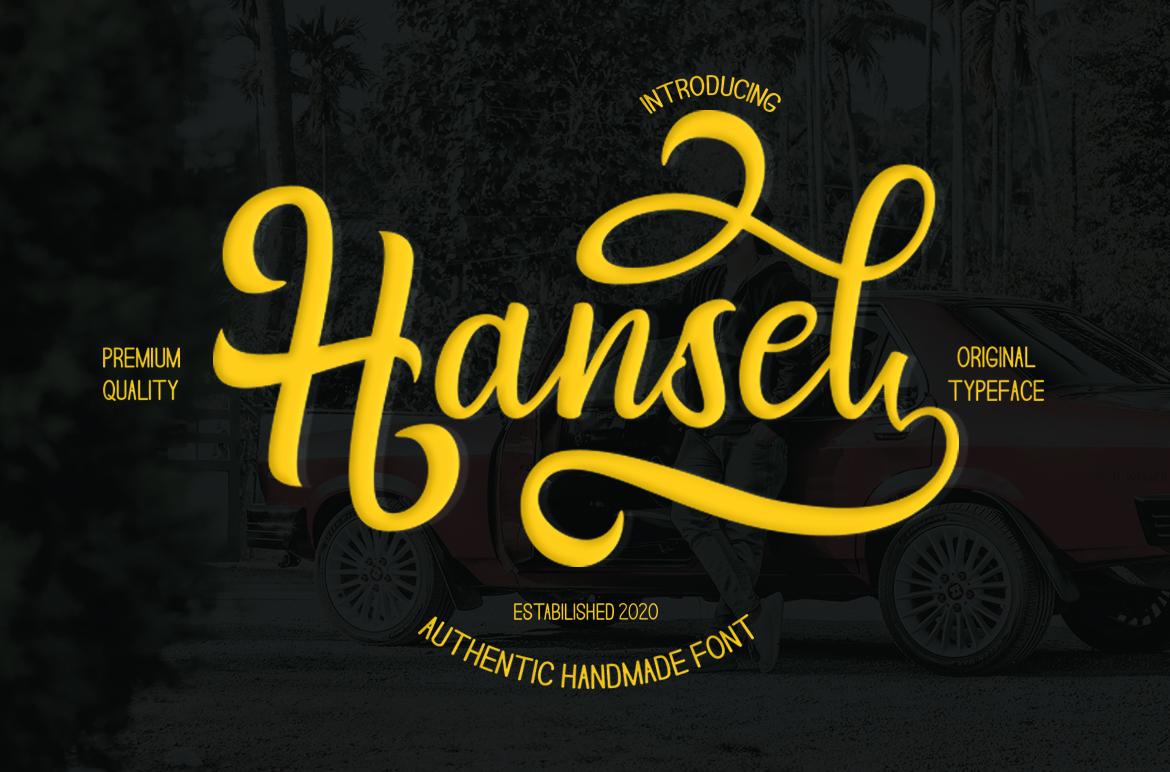
Hansel Font Description
Hansel is a fresh & modern script font with a handmade calligraphy style. It has decorative characters and a dancing baseline! So beautiful on greeting cards, branding materials, business cards, quotes, posters, and more!This font is PUA encoded which means you can access all of the glyphs and swashes with ease!